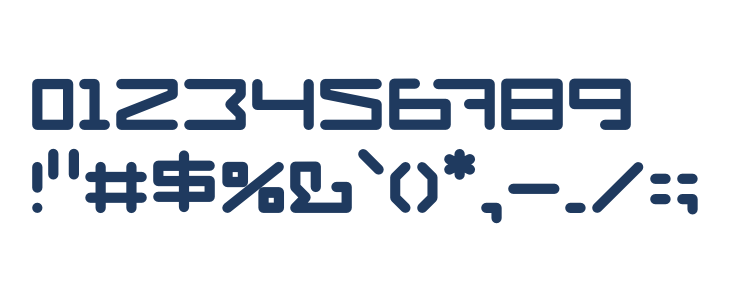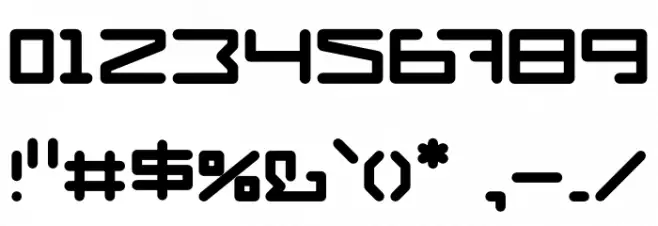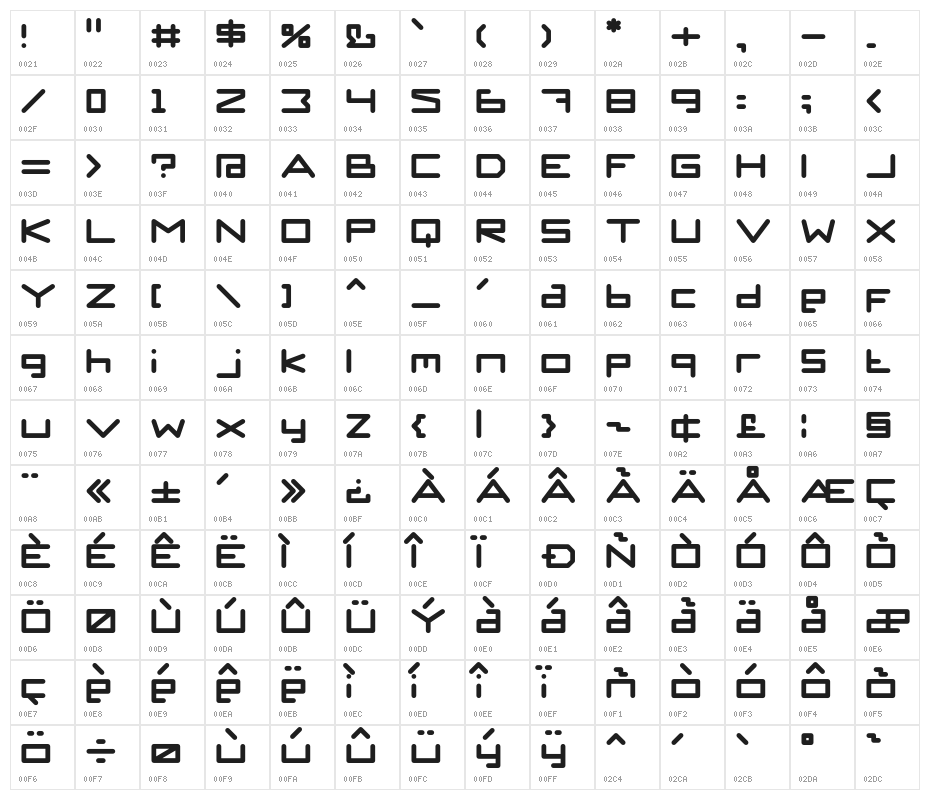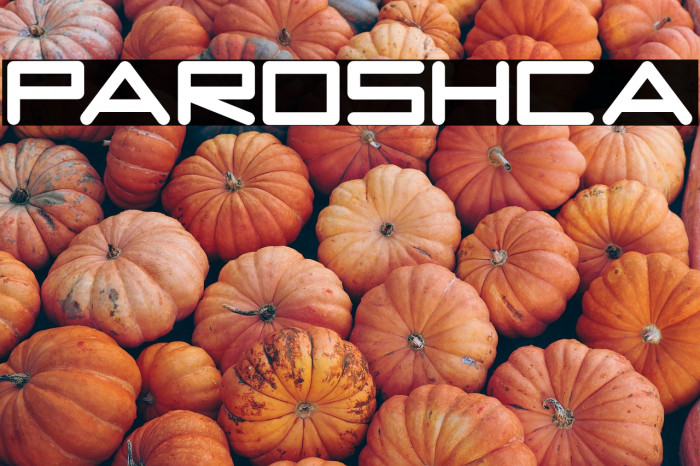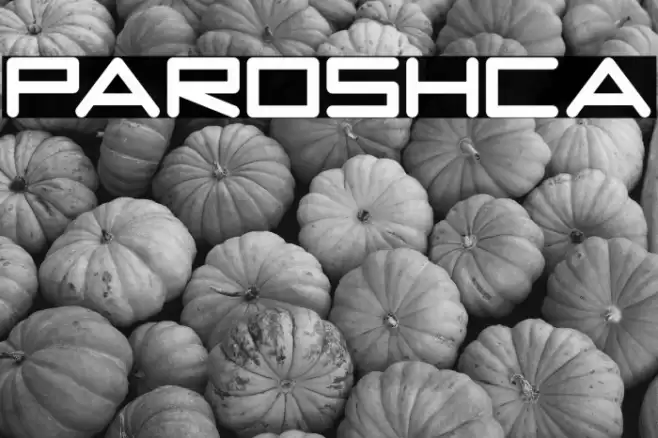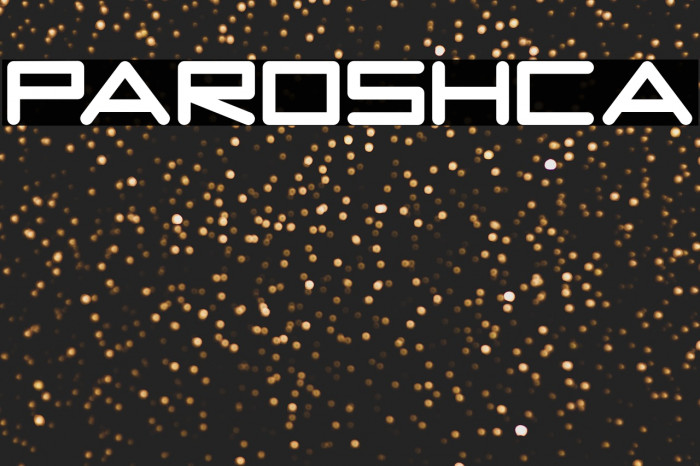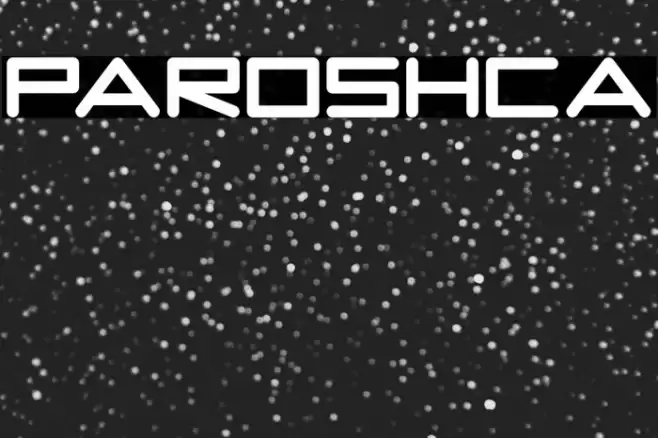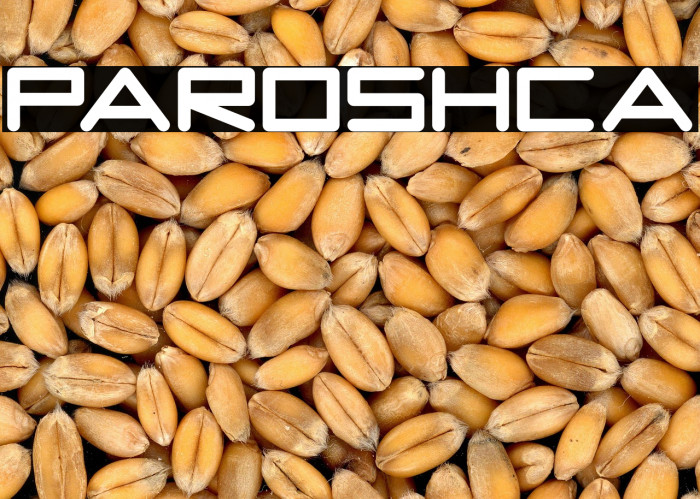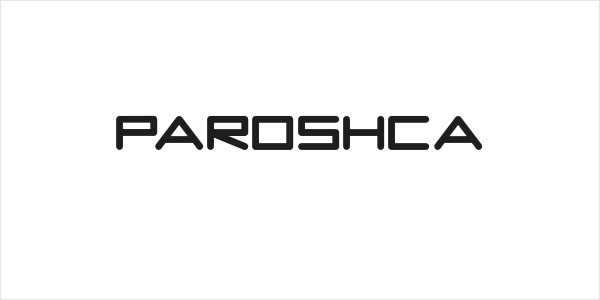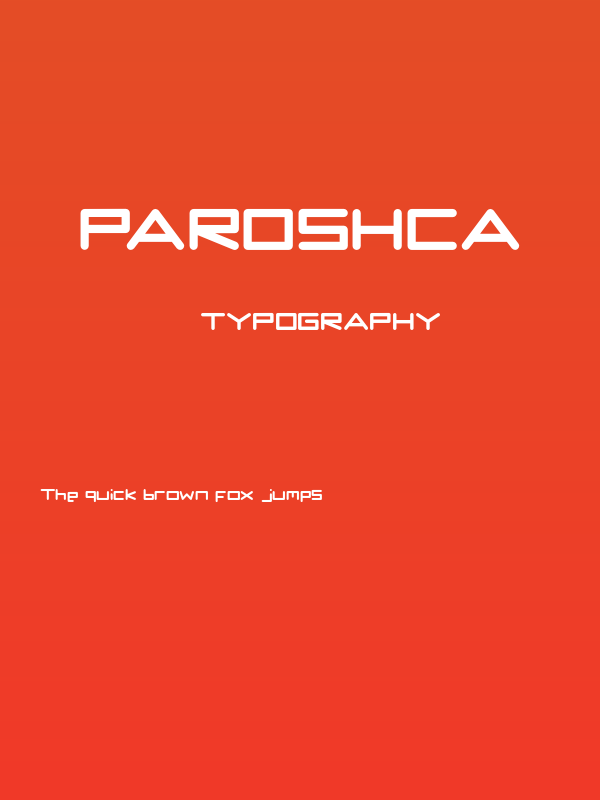
PAROSHCA Font
PAROSHCA Description
This font features a modern, geometric design with rounded edges and a consistent stroke width. The characters are constructed with a futuristic aesthetic, emphasizing clarity and simplicity. The uppercase and lowercase letters maintain a uniform style, while the numerals and special characters complement the overall design. The font's structure is clean and legible, making it suitable for digital interfaces and contemporary branding projects.
| Use Case | Logos, Headlines, Digital Interfaces |
| Proposed Projects | Ideal for tech branding, digital interfaces, futuristic designs, and modern advertising. |